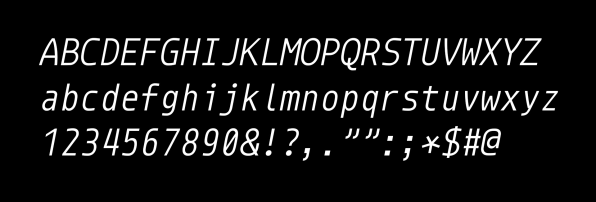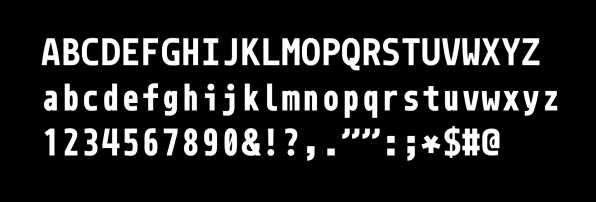
Coders look for different things in a typeface than normal people do. While most of us choose a font for the character it imparts to our words (Baskerville for authority, Comic Sans for playfulness, and so on), programmers want a font that is clean, uniform, highly readable, and precise, just like good code. Monoid is a new font designed by Andreas Larsen that aims to do all the above, and more. An open-source font aimed at coders, Monoid has been designed, first and foremost, to be highly readable even when you’re scanning through ten thousand of lines of C++, looking for that one bug-causing typo.
The guiding design principals of Monoid, according to Larsen, was that his code be legible, compact, and pretty. Like most coding fonts, Monoid is a monospaced font, meaning that all the characters take up the exact same width onscreen. This can help coders scan for syntax errors. Despite this, though, Monoid is fairly tightly spaced, largely because Larsen wanted to make sure that as much code as possible could fit on the screen when rendered in Monoid.
But where Monoid really shines compared to other coding fonts is in the distinguishability of its glyphs. In any typeface, there are going to be letters that look like each other: a lowercase ‘i’ and a lowercase ‘l’ for example, or the difference between an O and a zero. In Monoid, Larsen took great care to design characters so that they are easy to tell apart, even with glyphs you wouldn’t think look a lot alike, like an R and a B. In English and other languages, the chances of you mistaking those letters for one another are nil, because the rest of the word provides clear context, but when scanning code, a programmer could easily mistake one for the other… let alone a zero, an O, a Greek theta, and a Nordic Ø. Larsen takes care in these and other glyphs to make each one unique, using differently sized curves, ascenders and descenders, and other details as subtle cues to make each character unique.